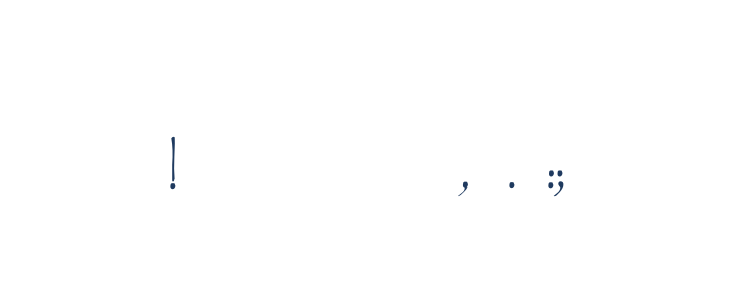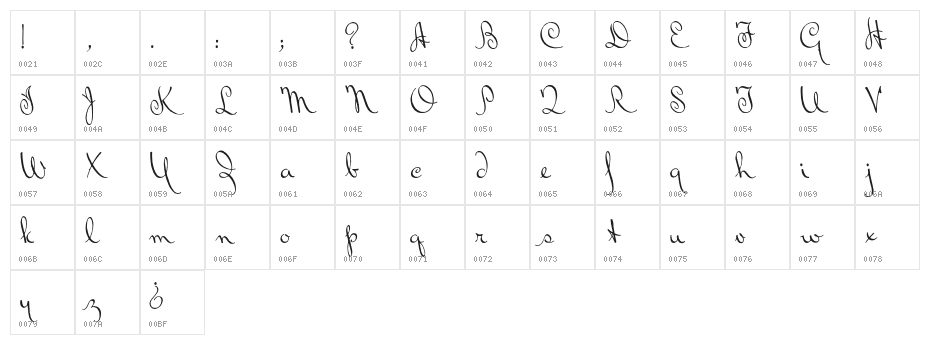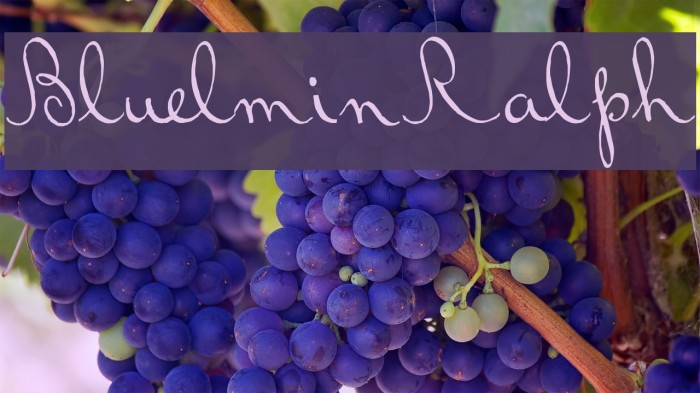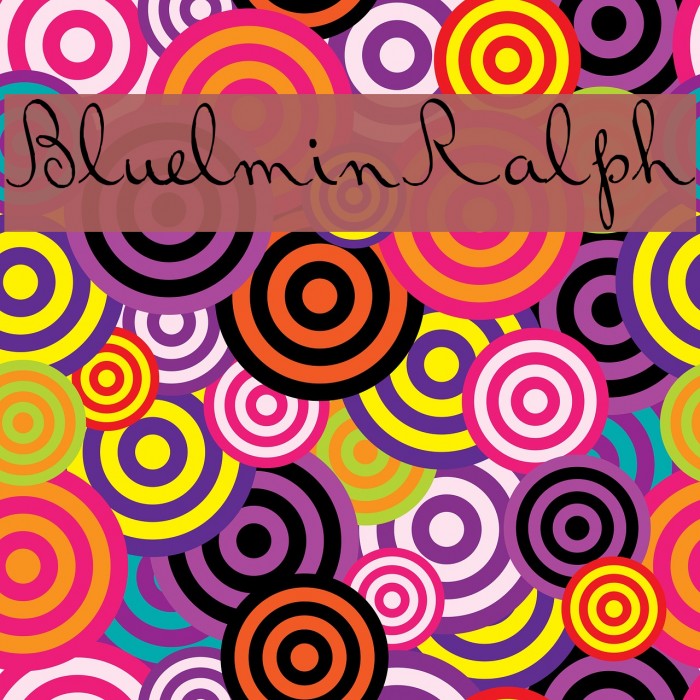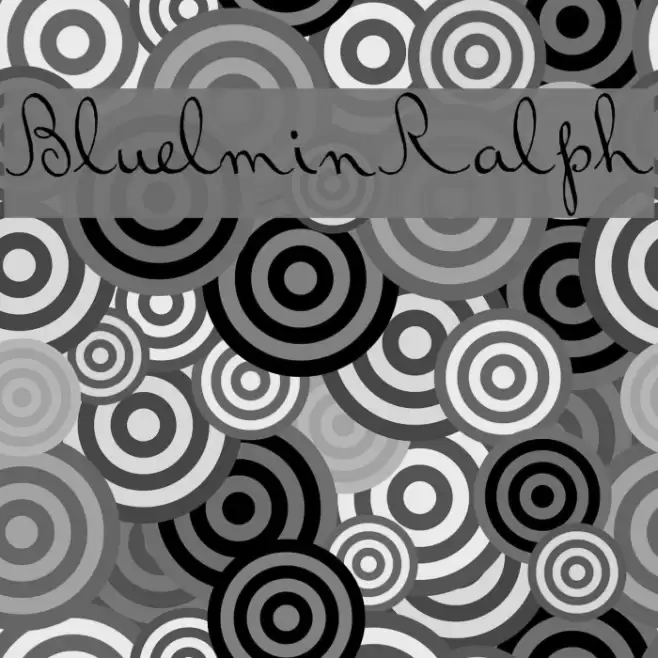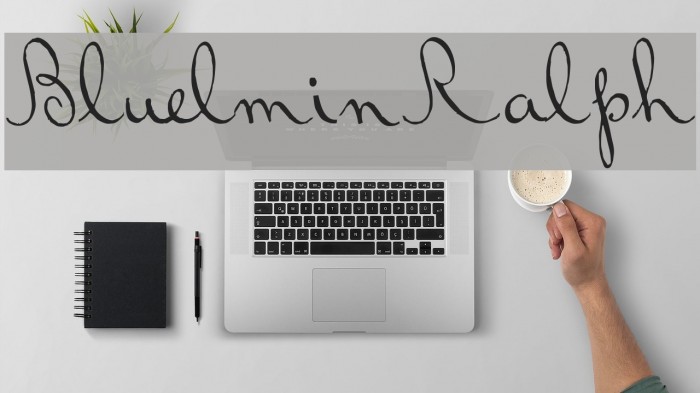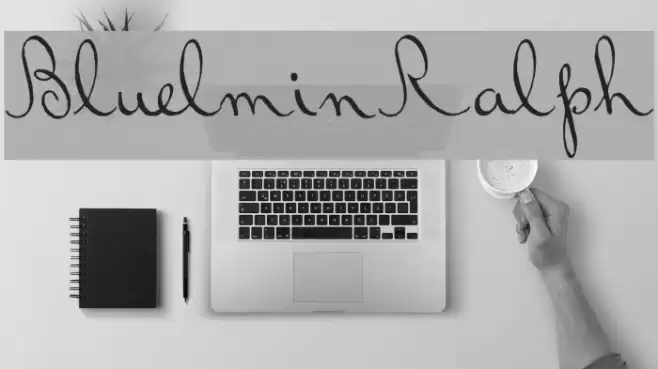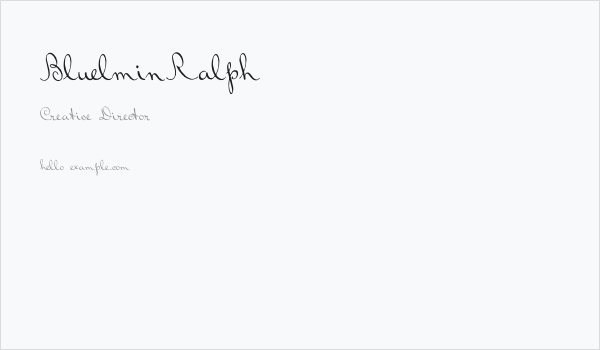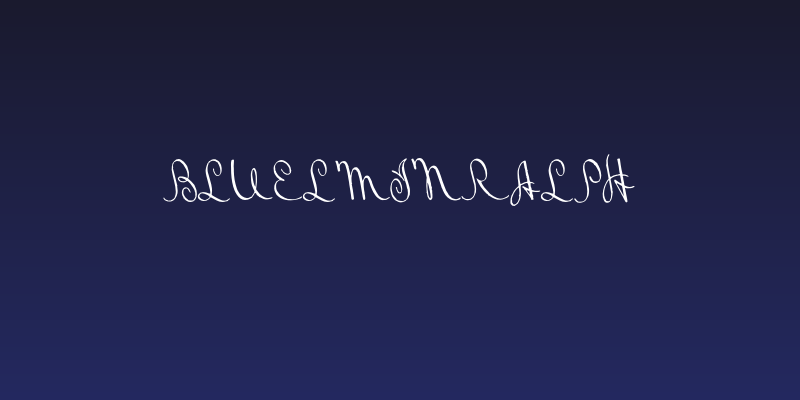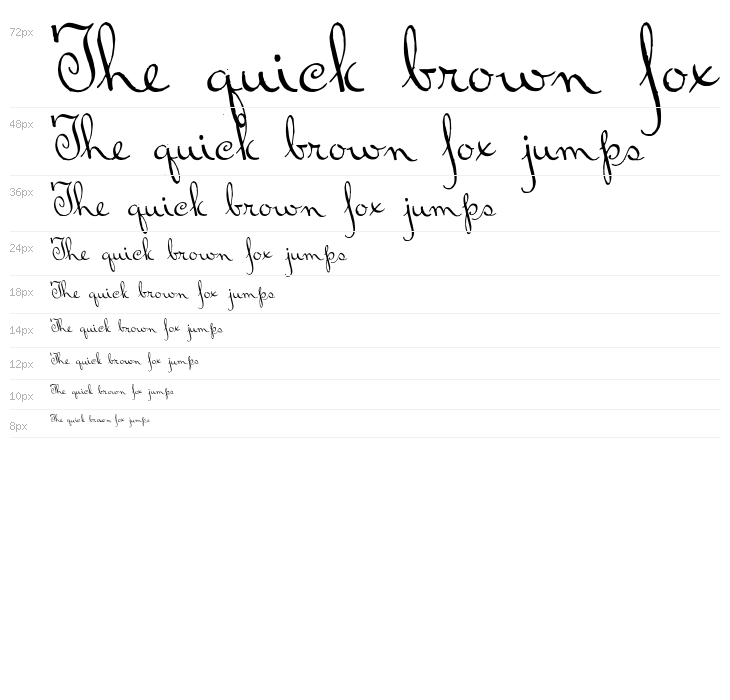
BluelminRalph Font
This font features an elegant, flowing script style with intricate loops and swirls, giving it a sophisticated and artistic appearance. The uppercase letters are particularly ornate, with exaggerated curves and flourishes that add a sense of movement and grace. The lowercase letters maintain a consistent style, with smooth connections between characters, enhancing the fluidity of the text. The numerals and special characters are designed to match the overall aesthetic, ensuring a cohesive look across all elements. This font is ideal for projects that require a touch of elegance and creativity.
| Overall Style | Elegant, Artistic |
| Proposed Projects | Wedding invitations, luxury branding, artistic posters, and elegant stationery. |